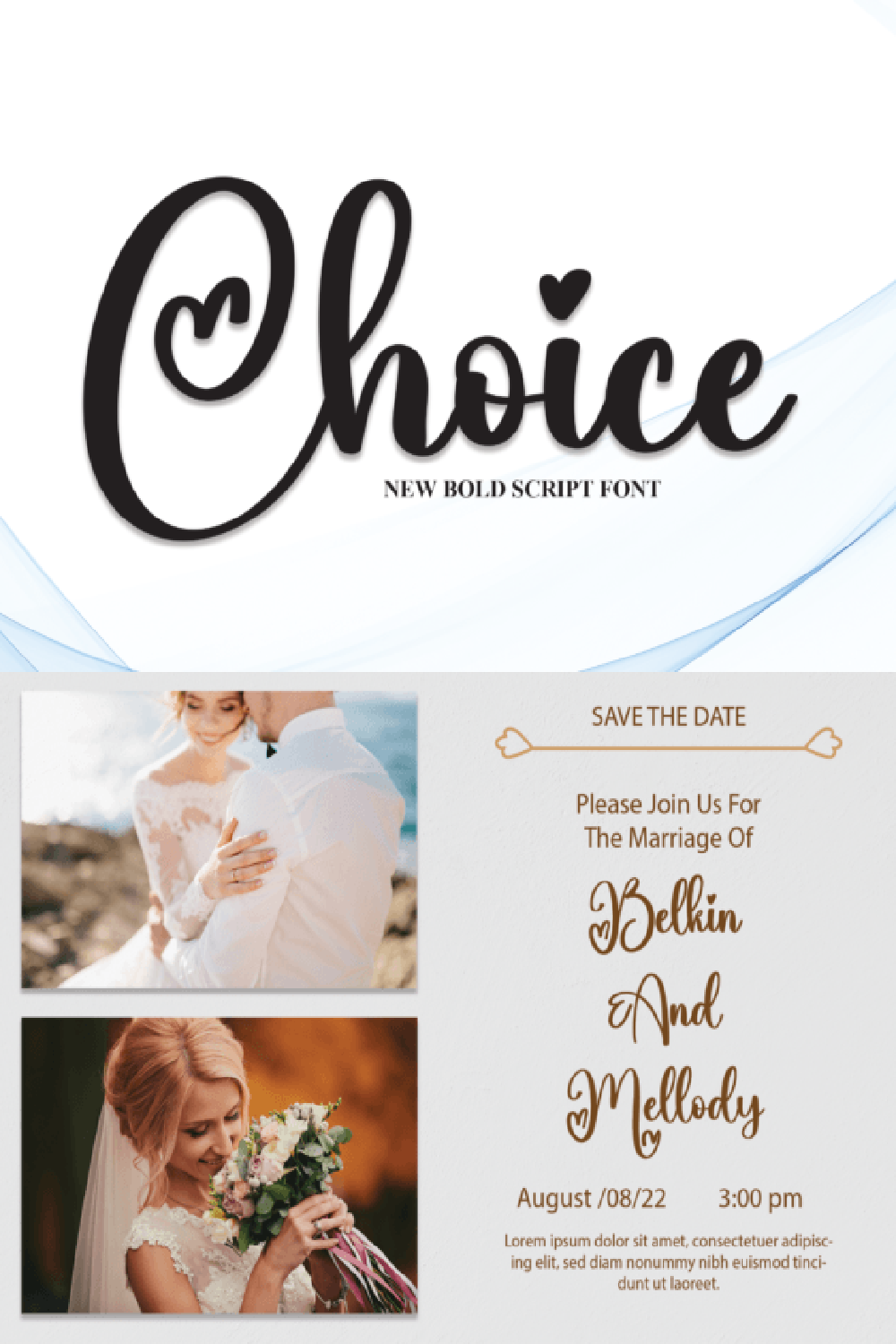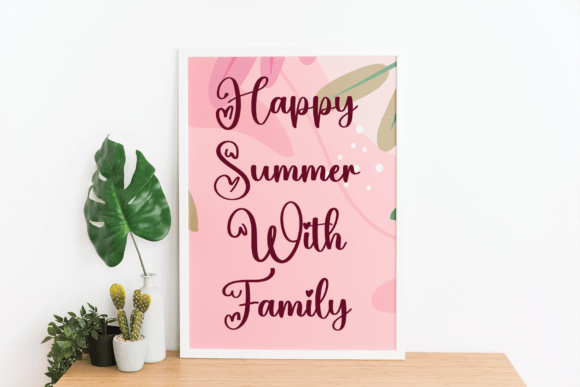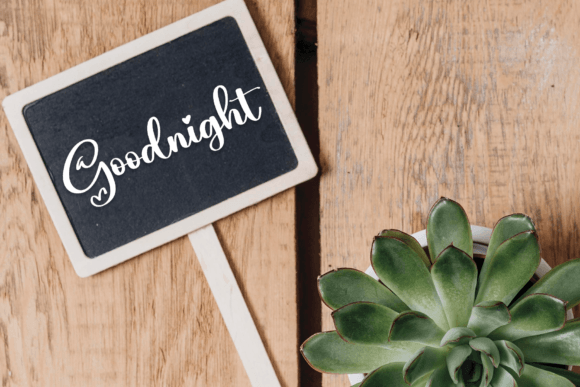
Choice Font: Heartfelt Script for Wedding & Branding Designs
About the Choice Font
Welcome to the world of Choice Font, a typeface that will inspire your next great project. Choice is a font with connecting hearts that is great for initials and display projects like magazines and crafts. This font includes a cute heart with each character—awesome for personalized holiday decorations. The font includes many heart illustrations, so you have a wide variety to choose from.
Choice Font Usage Examples